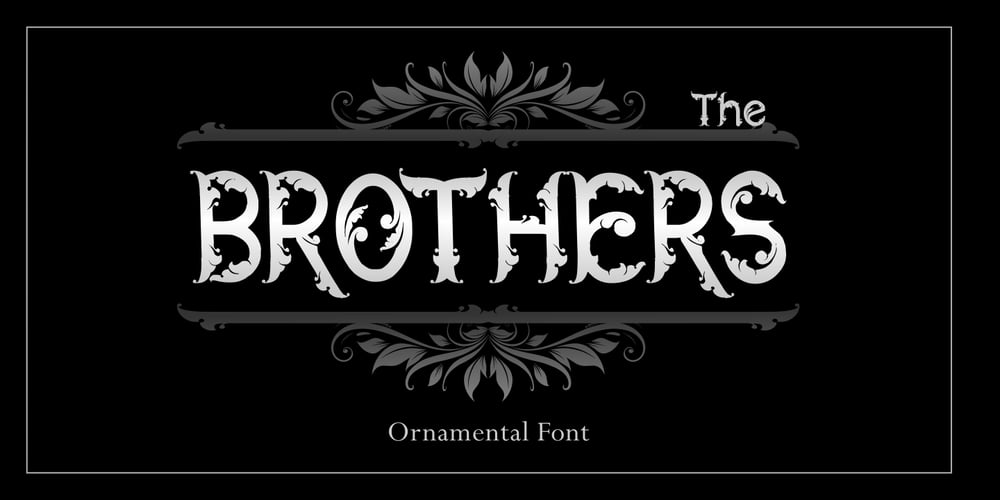
The Brothers Font Family was designed by Ahmad Zulfikar Ali and published by ZetDesign. The Brothers contains 2 styles and family package options. This font was inspired by carvings and ornament models that I found a lot in my daily life. it’s a pleasure to be able to present this font as part of an awesome design work. this font include italic style.This font is perfect for traditional, cultural,social and natural theme designshope you enjoy ….